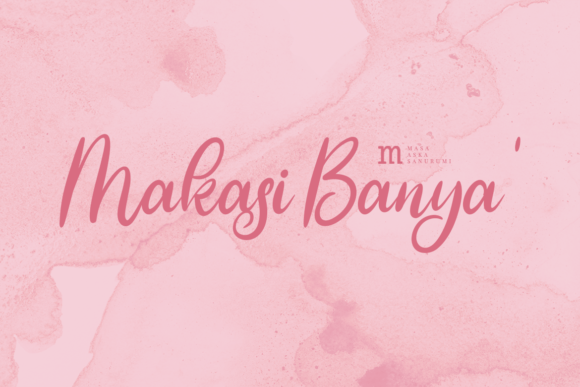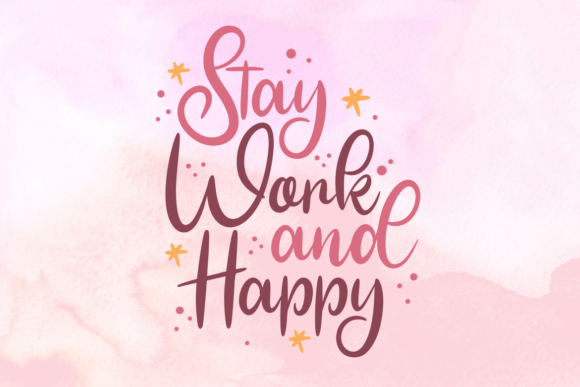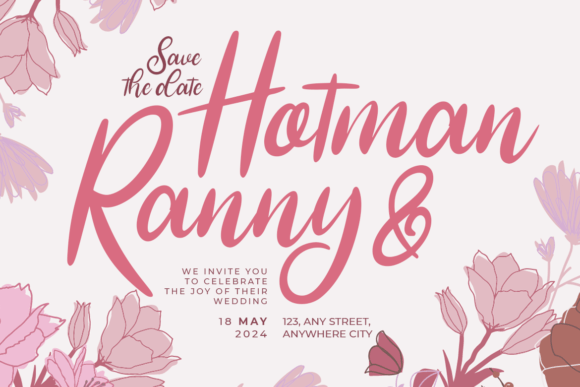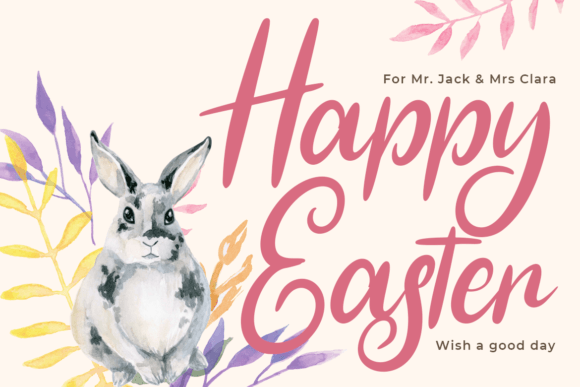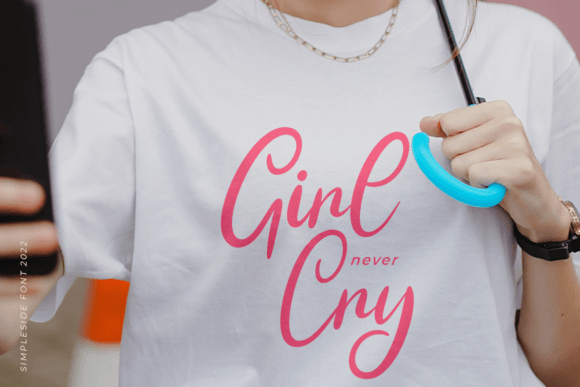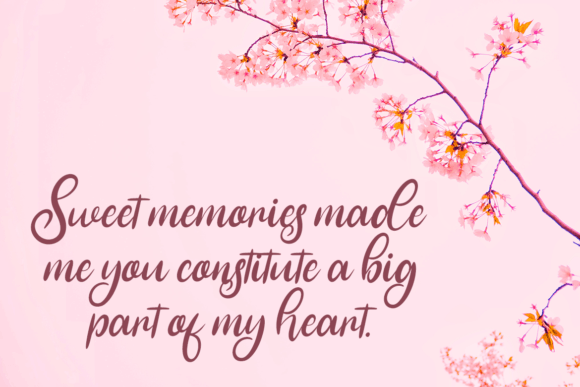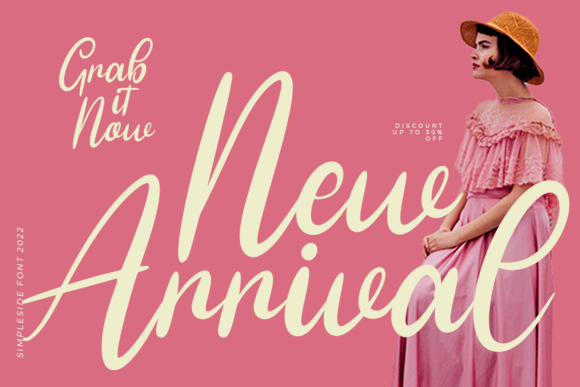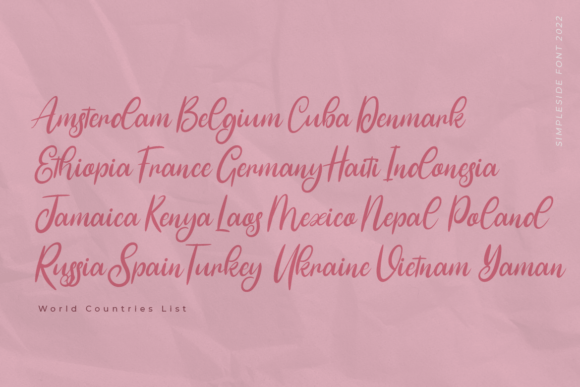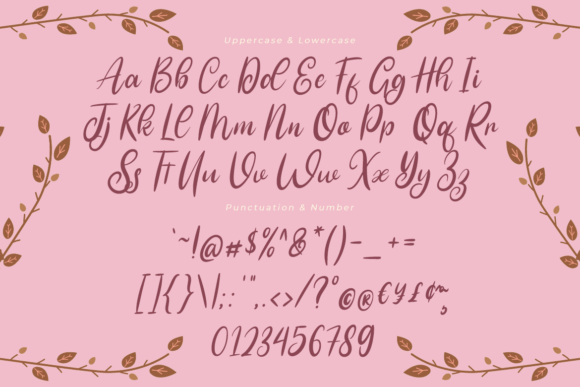
Simpleside Font
About Simpleside Font
Simpleside is an organic and stunning script font, characterized by its simplicity and inherent style. Whether you’re in search of fonts for Instagram or calligraphy scripts for your DIY projects, Simpleside possesses the transformative ability to turn any creative idea into a true piece of art.
The organic charm of Simpleside is immediately apparent, capturing attention with its graceful script. Defined by simplicity, this font adds a touch of elegance to your projects while maintaining an understated and versatile style.
Whether you’re crafting content for social media on Instagram or engaged in DIY projects, Simpleside is a font that adapts seamlessly to various design applications. Its beauty lies in its straightforward yet captivating design, making it suitable for a range of creative endeavors.
Incorporating Simpleside into your designs is an invitation to infuse them with simplicity and style. The font’s organic and gorgeous script becomes a valuable tool, transforming your creative ideas into visually appealing pieces of art.
In summary, Simpleside transcends being just a font; it’s a design asset that combines simplicity with style, adding an organic touch to your creative projects. Whether you’re working on social media content or DIY endeavors, let Simpleside be the script font that enhances your ideas and turns them into true pieces of artistic expression.